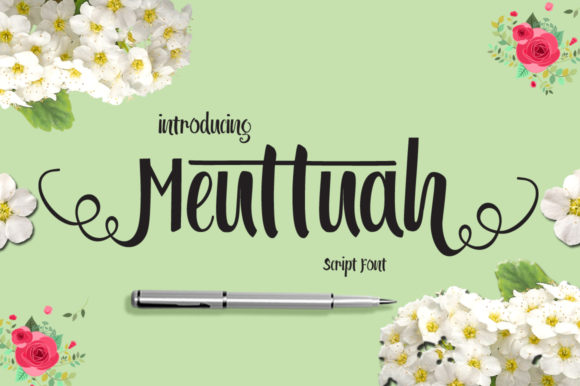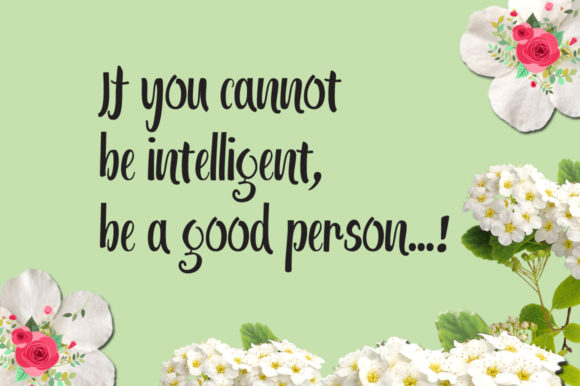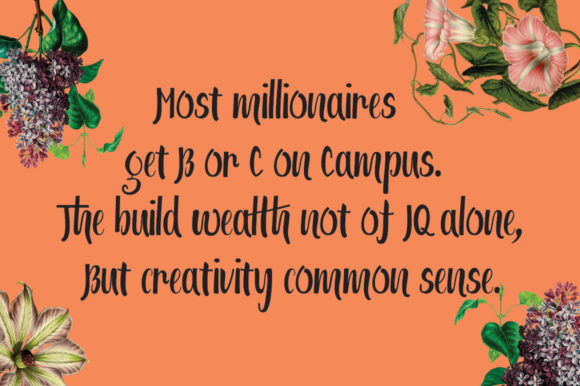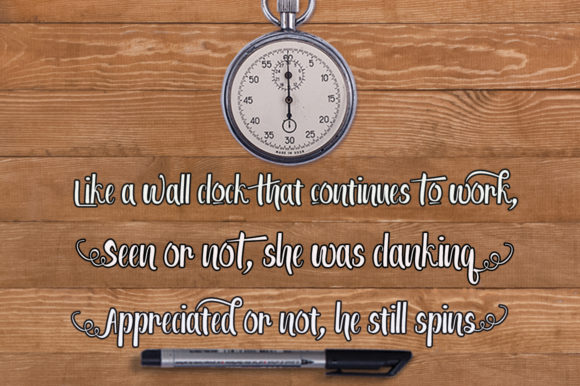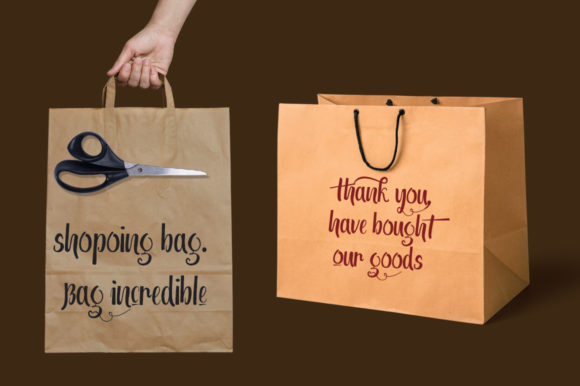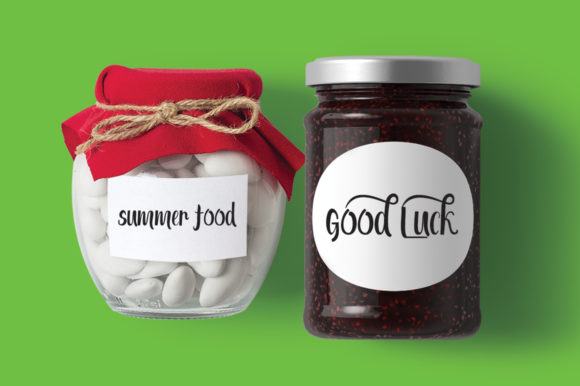
HomeScript FontsMeuttuah Font Script Fonts Meuttuah Font FacebookXPinterestWhatsApp Meuttuah Font Poster 2 Meuttuah Font Poster 3 Meuttuah Font Poster 4 Meuttuah Font Poster 5 Meuttuah Font Poster 6 About Meuttuah Font Meuttuah is a cute and bold handwritten font with a stunning feel. Get inspired by its unique charm! DOWNLOAD ON CREATIVE FABRICAThis font is sold and delivered by Creative Fabrica. Font Canyon may earn a commission if you buy through this link. People also explored Sunflower Font Afro Font Gingar Bread Font Invitation Font Bams Glitch V2 Font Luckiest Softie Pro Bloshoming Font Belista Script Font Tourism 328 0 TagsMeuttuah Font Previous articleBlastamino FontNext articleChaiden Font LEAVE A REPLY Cancel reply Comment: Please enter your comment! Name:* Please enter your name here Email:* You have entered an incorrect email address! Please enter your email address here Website: Save my name, email, and website in this browser for the next time I comment. Personal Use Free Heart Personal Use Free Read more about this font Krabuler Personal Use Free Read more about this font Degrassi Personal Use Free Read more about this font Carved Wood Personal Use Free Read more about this font BLOG 5 Fonts That Will Dominate Design Trends in 2026 5 Fonts for 2026 That Will Dominate Design Trends Typography plays a critical role in visual communication, and as we look ahead to 2026, it’s... Top 7 Google Fonts Alternatives for Faster and Privacy-Friendly Web Design (2025) Top 10 Handwritten Fonts That Elevate Your Designs Fonts That Capture the Spirit of New York City